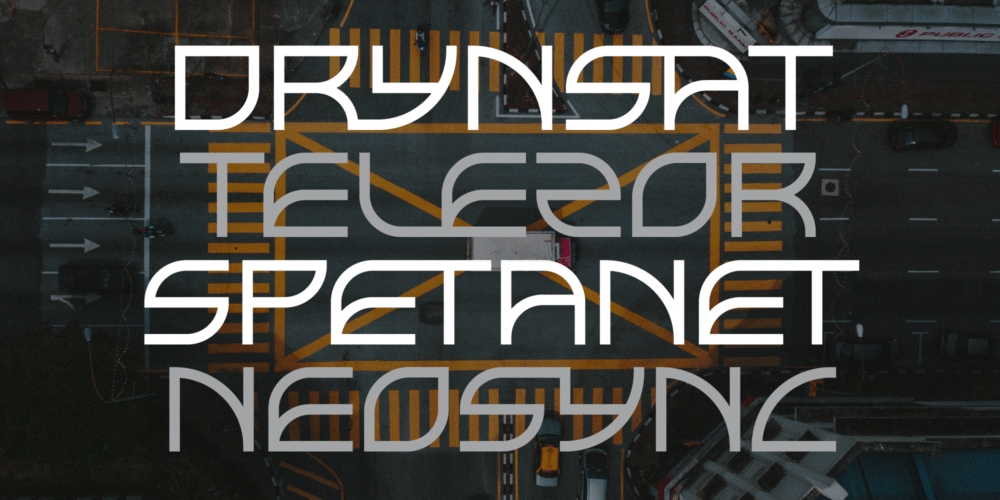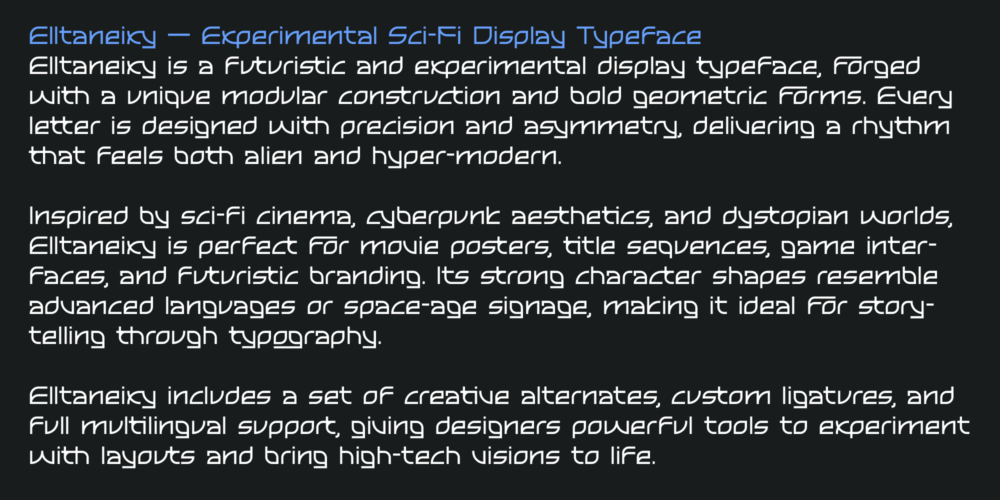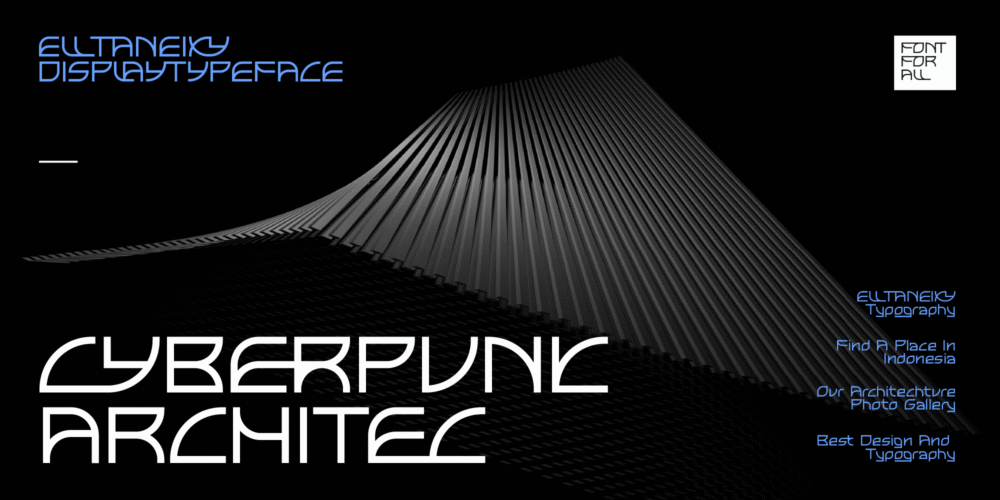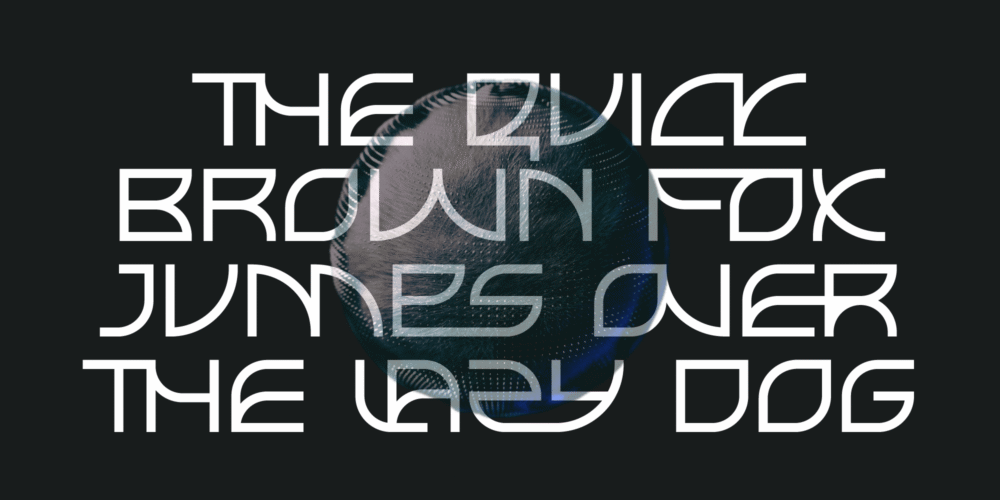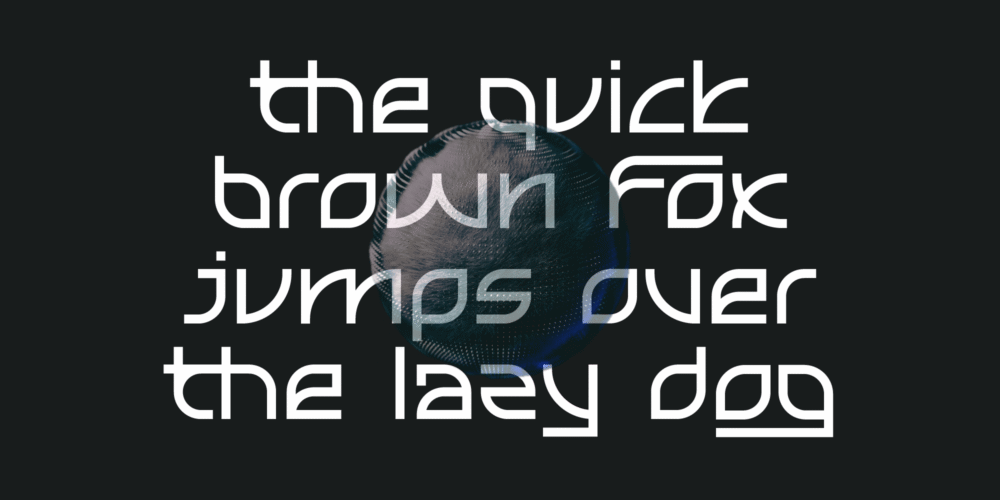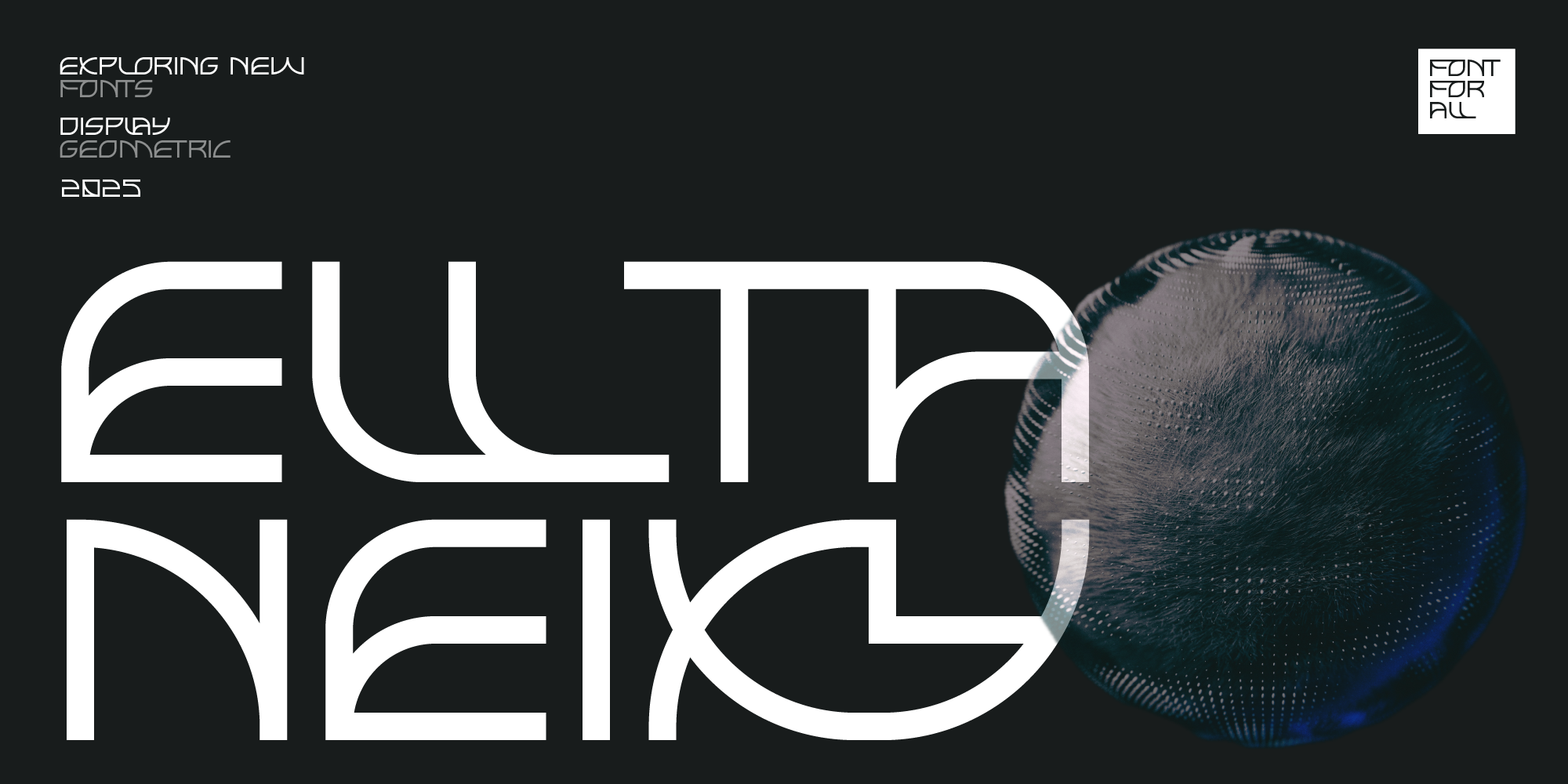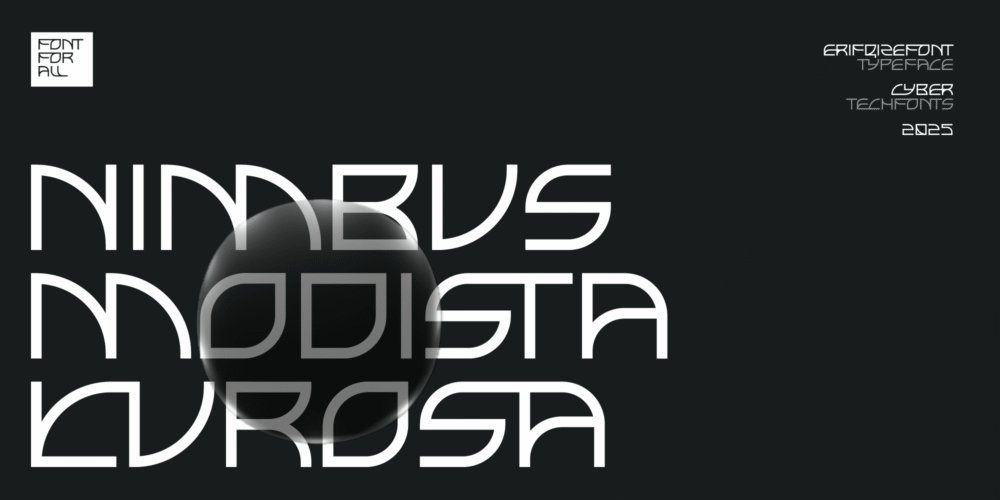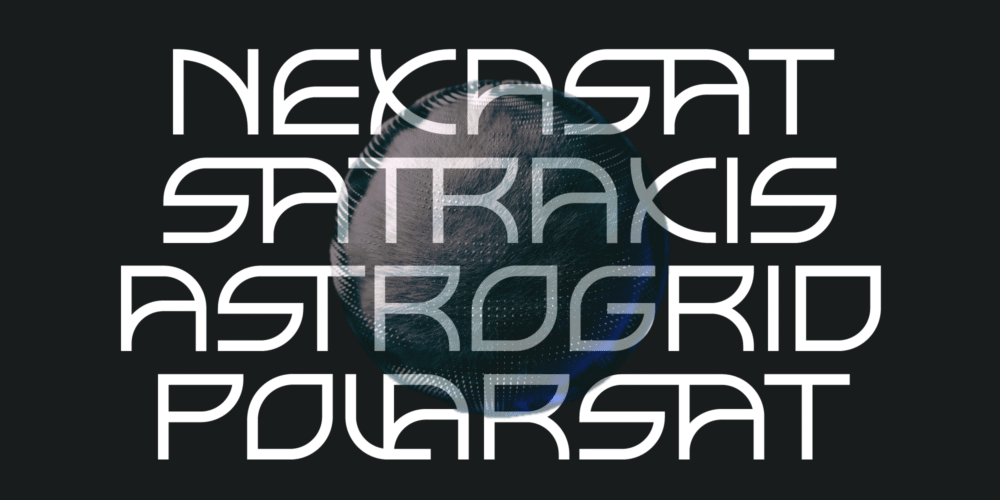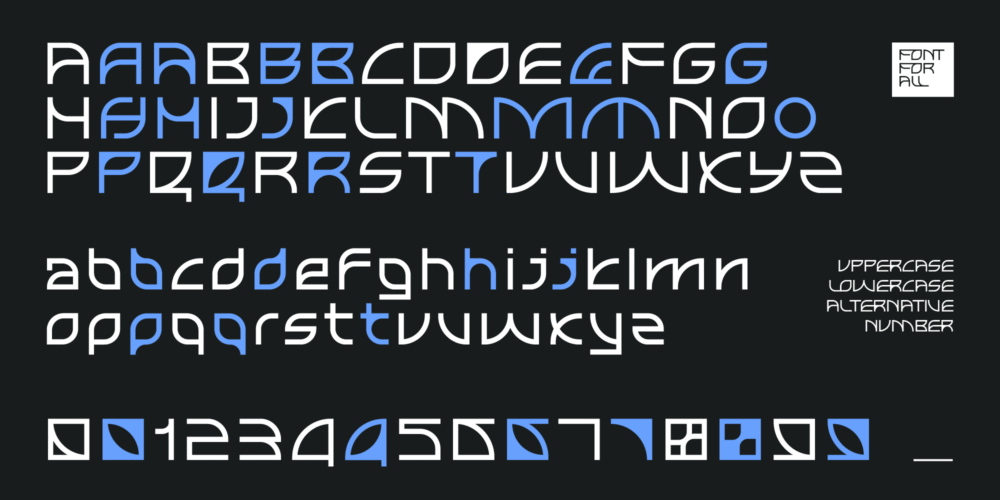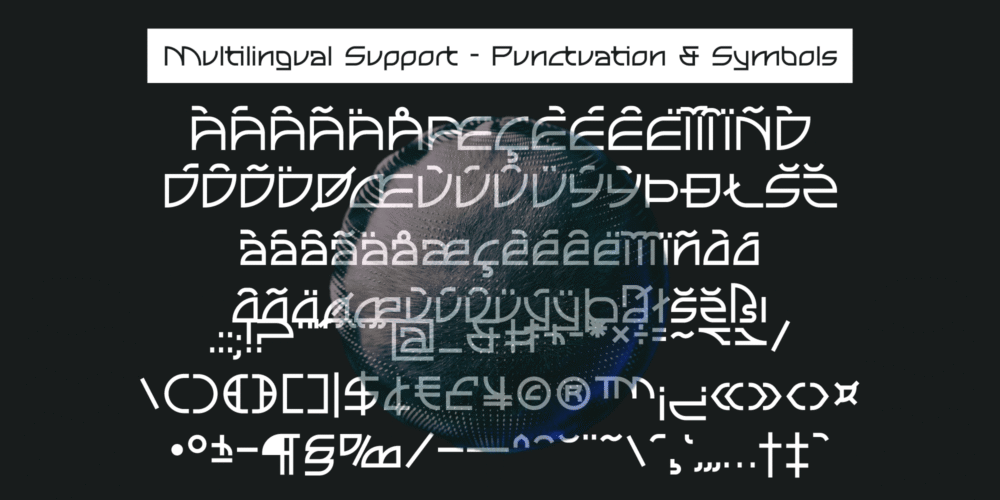
Elltaneixy
Elltaneixy — Experimental Sci-Fi Display Typeface
Elltaneixy is a futuristic and experimental display typeface, forged with a unique modular construction and bold geometric forms. Every letter is designed with precision and asymmetry, delivering a rhythm that feels both alien and hyper-modern.
Inspired by sci-fi cinema, cyberpunk aesthetics, and dystopian worlds, Elltaneixy is perfect for movie posters, title sequences, game interfaces, and futuristic branding. Its strong character shapes resemble advanced languages or space-age signage, making it ideal for storytelling through typography.
Packed with 57 custom ligatures and 31 stylistic alternates, along with full multilingual support, Elltaneixy gives designers powerful tools to experiment with layouts, create unique compositions, and bring high-tech visions to life.
Elltaneixy – Experimental Sci-Fi Display Font
Elltaneixy is a futuristic and experimental display typeface, forged with a unique modular construction and bold geometric forms. Every letter is designed with precision and asymmetry, delivering a rhythm that feels both alien and hyper-modern